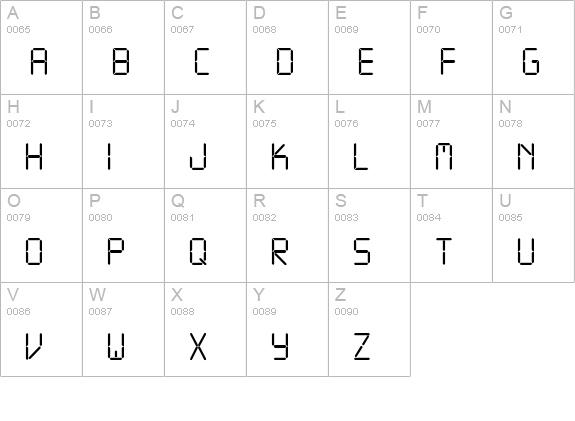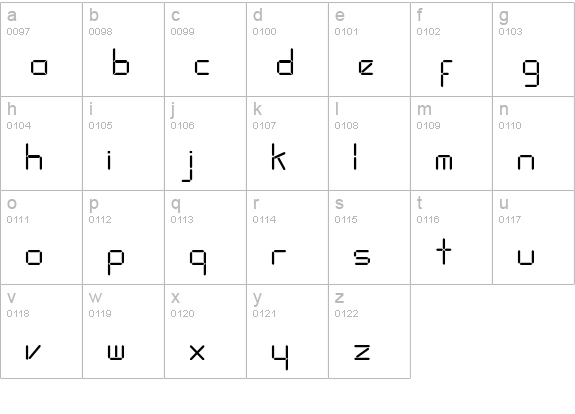
LEDFont Font Details
LEDFont is a mesmerizing and captivating font that is perfect for adding a touch of modernity and sophistication to any design project. With its sleek and futuristic appearance, this font is sure to grab attention and leave a lasting impression. The LEDFont font is designed with precision and attention to detail, resulting in a clean and polished look. Each character is carefully crafted to resemble the glowing lights of LED displays, creating a visually stunning effect that is both striking and elegant. This versatile font is ideal for a wide range of applications, from logos and branding to headlines and titles. Its bold and dynamic nature makes it perfect for projects that require a strong and impactful visual presence. What sets LEDFont apart is that it is not only visually appealing, but it is also completely free! Yes, you read that right. This amazing font is freely available to download at FontsMarket.com, making it accessible to everyone, regardless of budget or design expertise. Whether you are a professional designer looking to add a unique and eye-catching element to your work or a novice designer experimenting with typography, LEDFont is the perfect choice. Its modern and sleek design, combined with its affordability, makes it a must-have font for any creative project. So, what are you waiting for? Head over to FontsMarket.com and download LEDFont for free today. Elevate your designs with this captivating font and make a lasting impression on your audience.